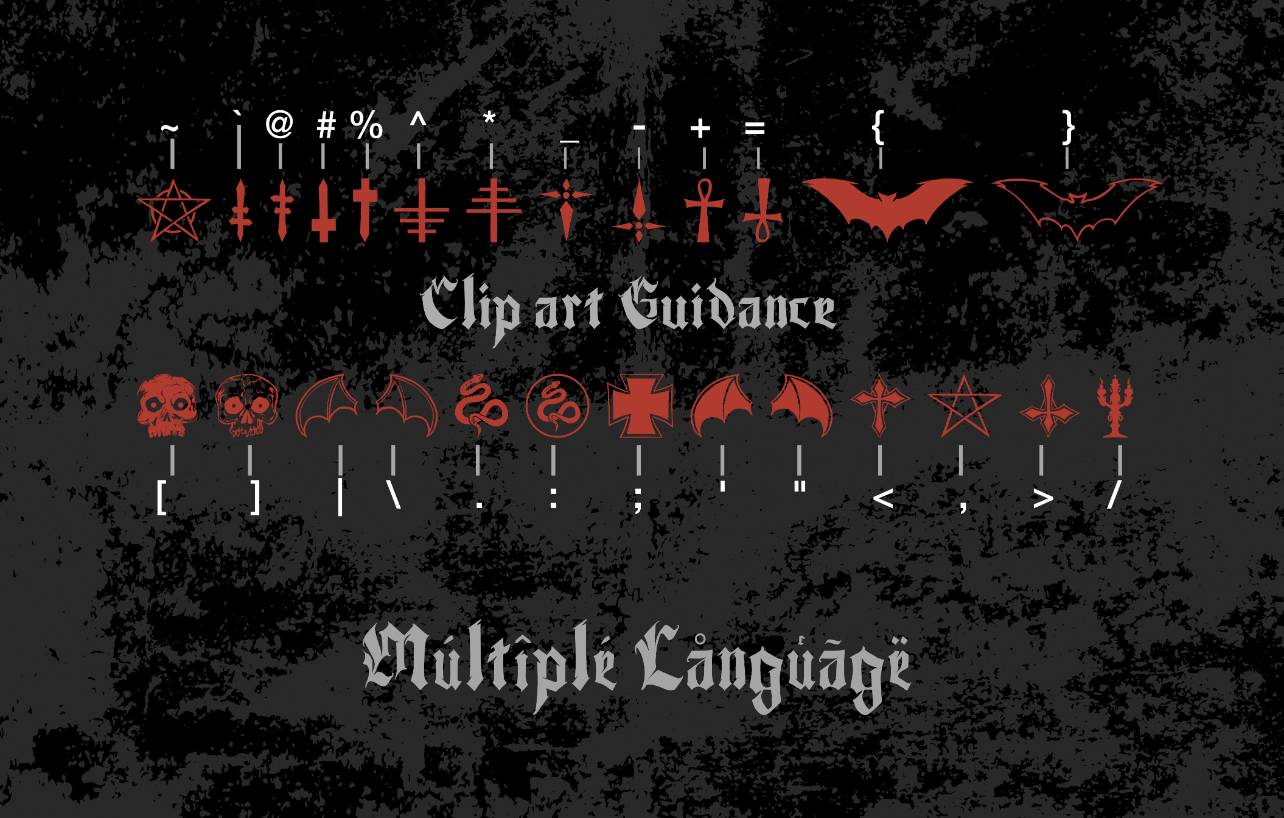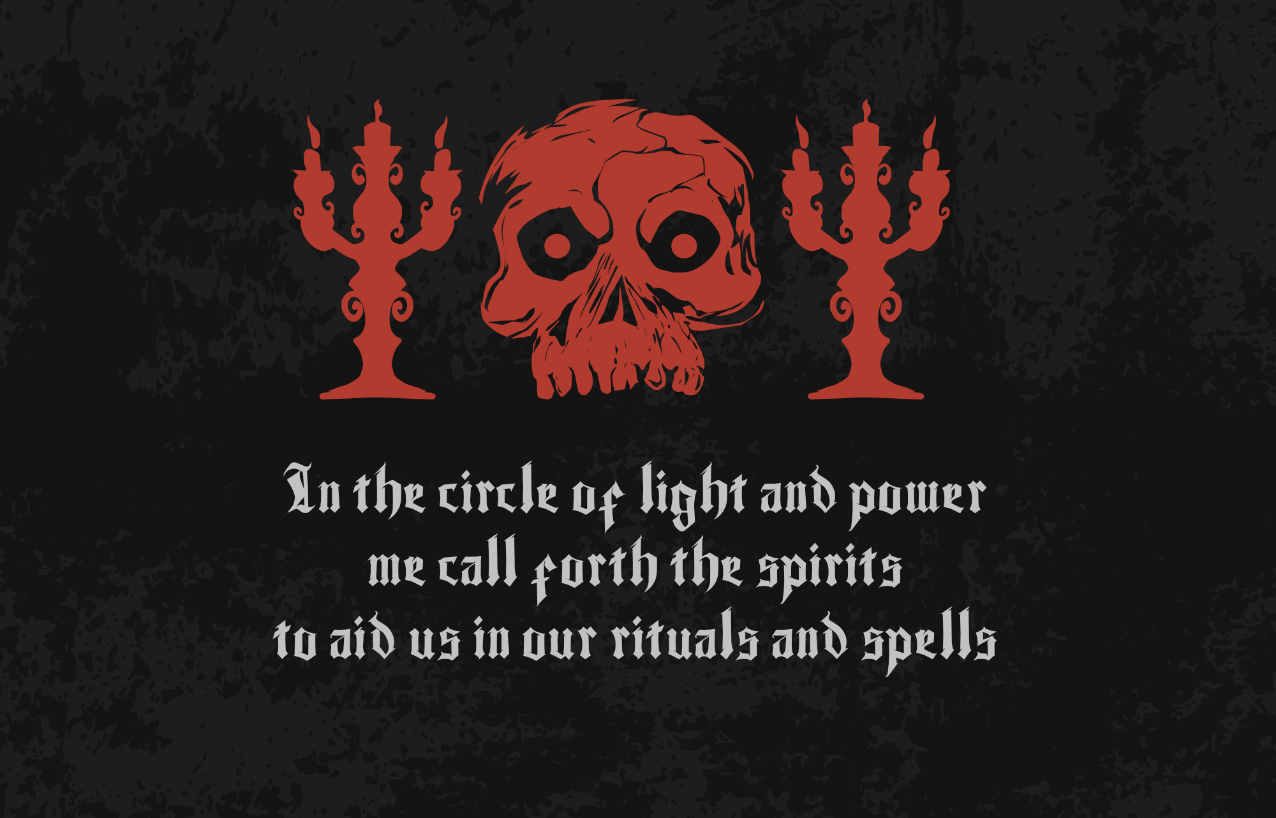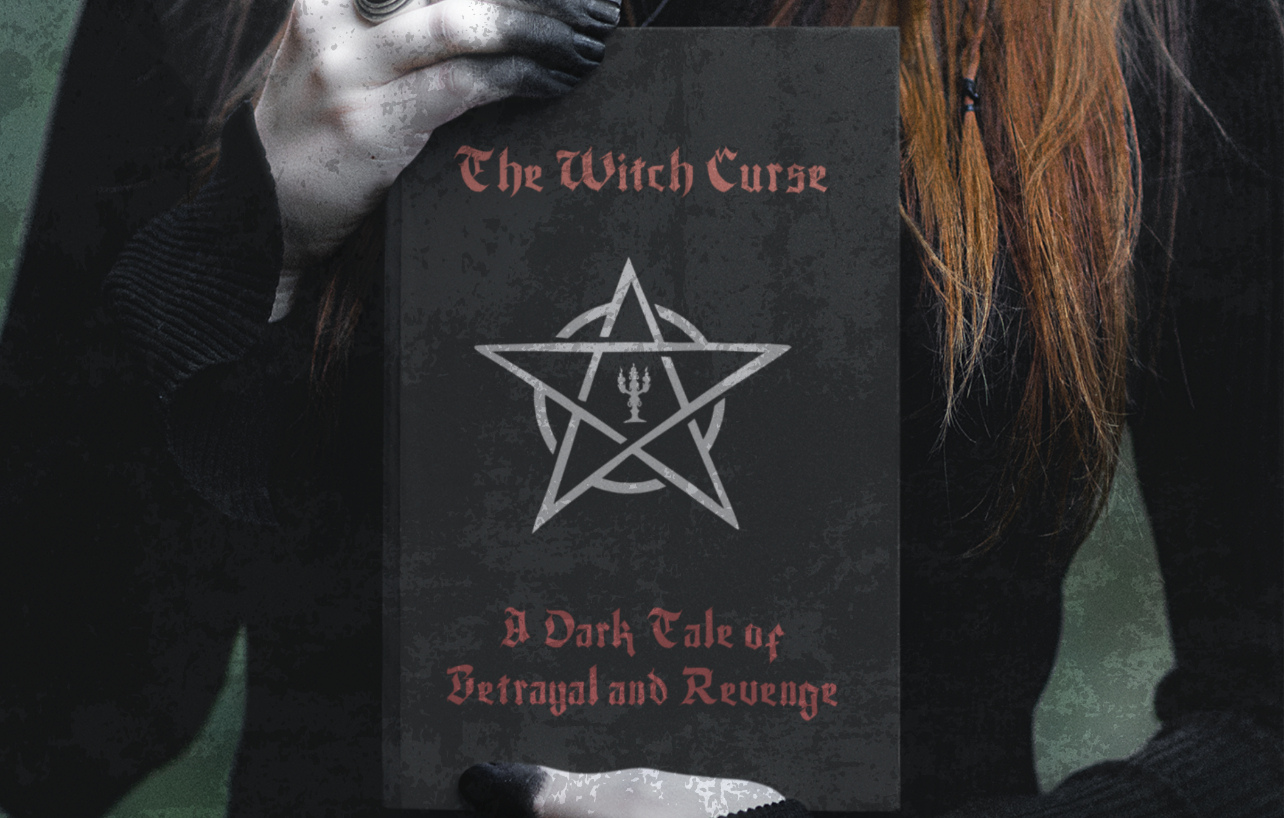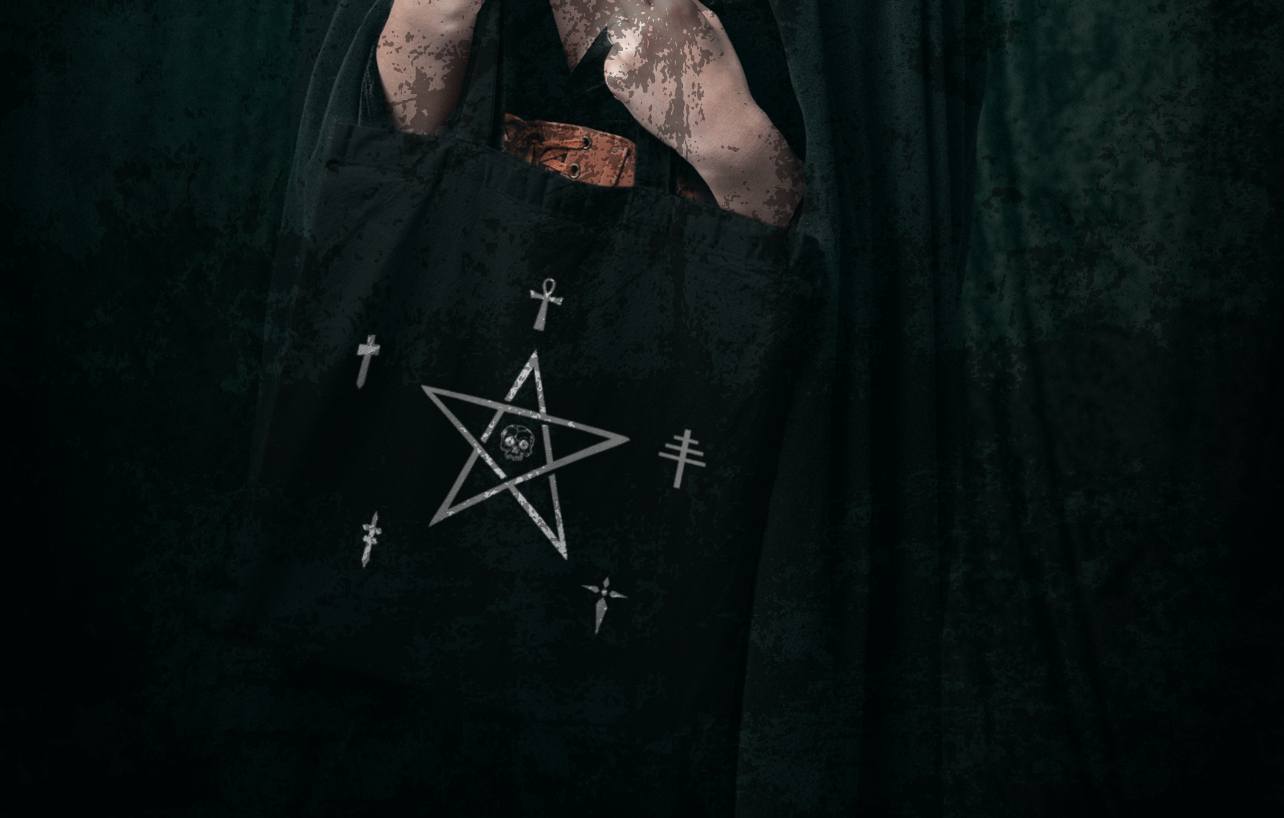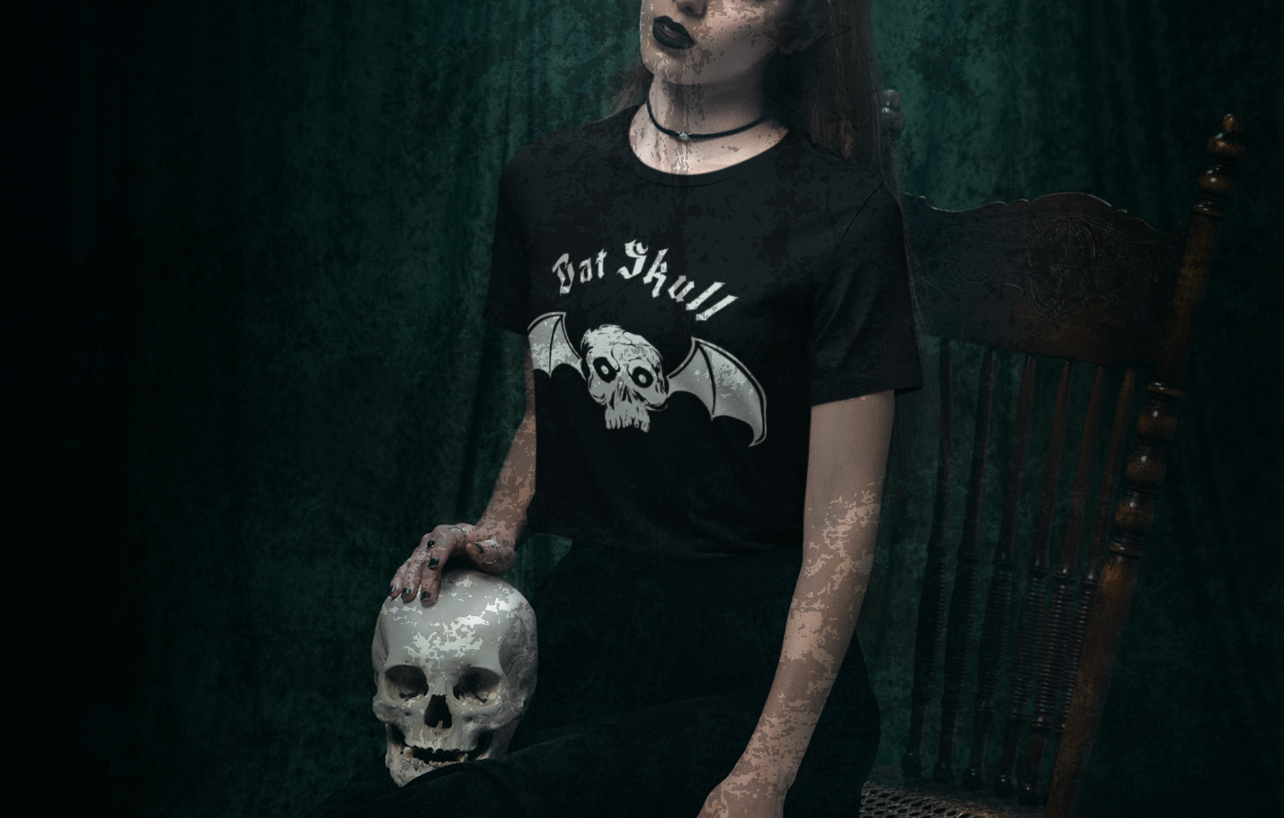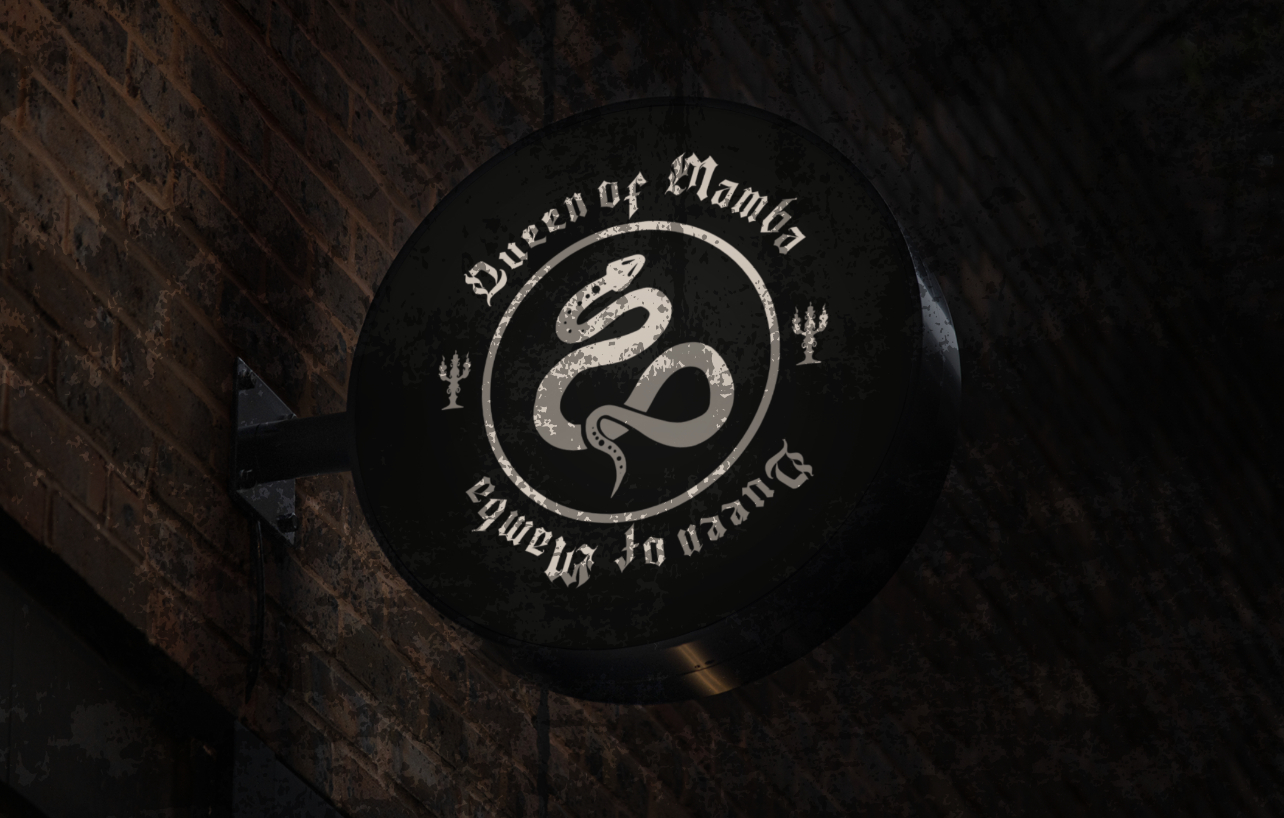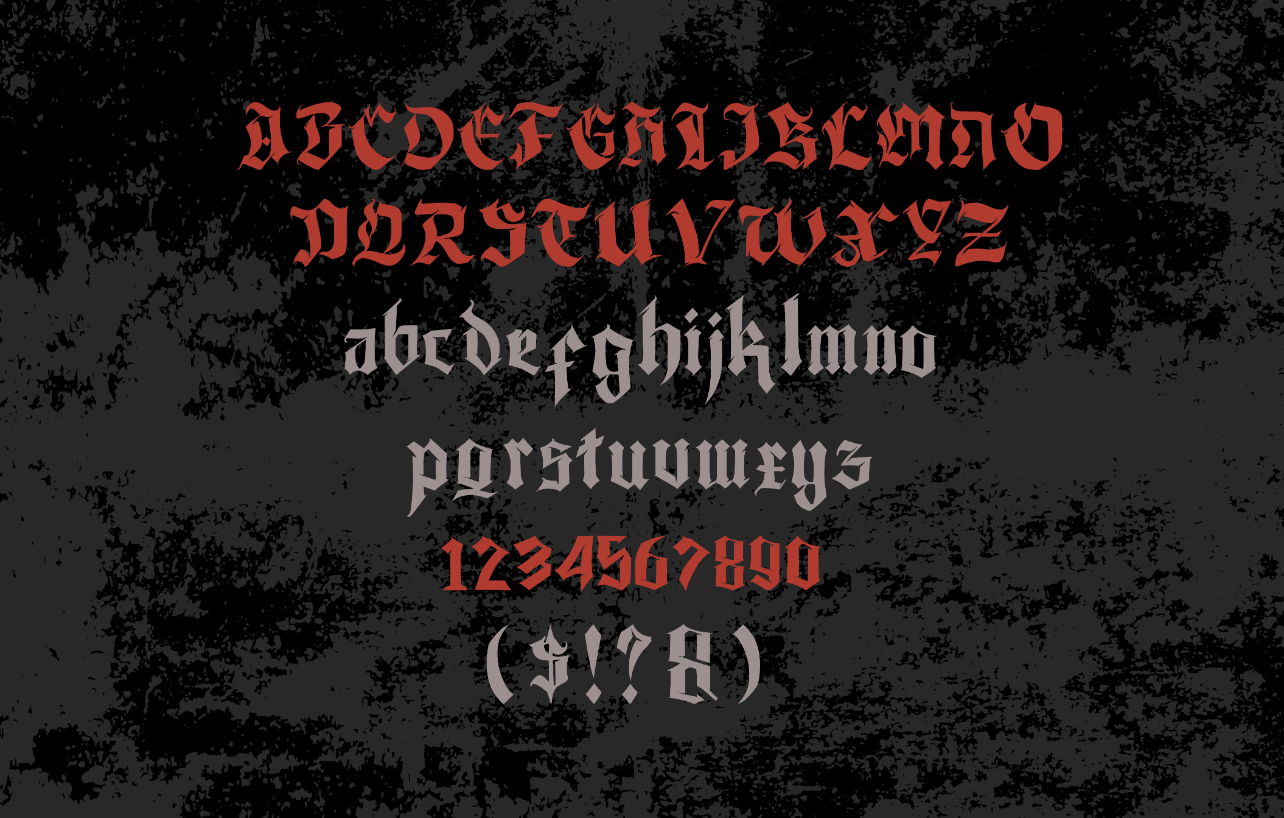
Drude Fraktur Font
Drude Fraktur is a splendid blackletter font containing a few extra Gothic clip art elements. Use it for product packaging, branding, witchy posters and stickers, or other projects that need bold and daring typography!